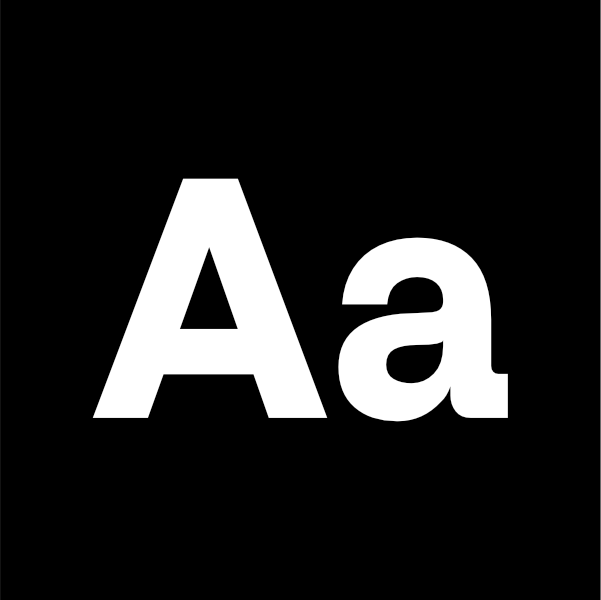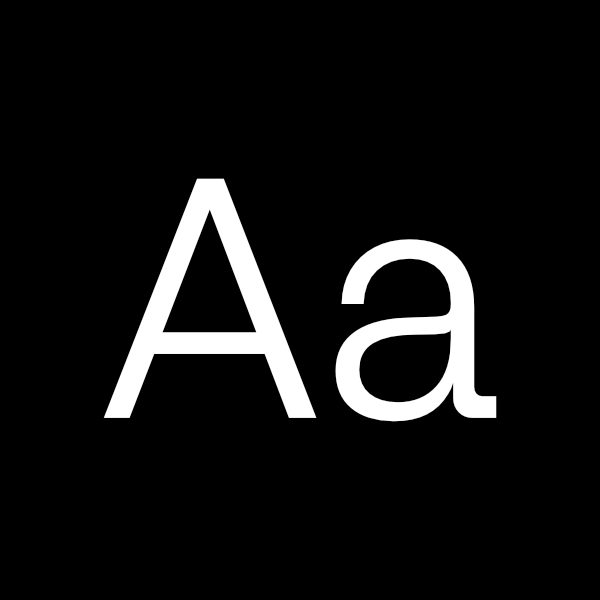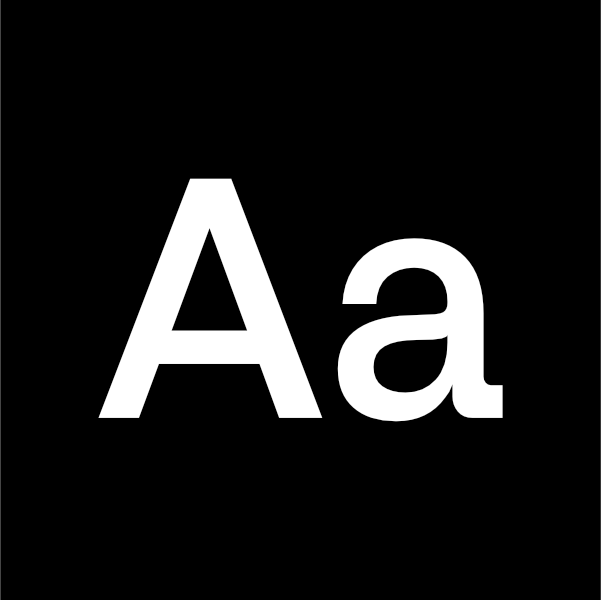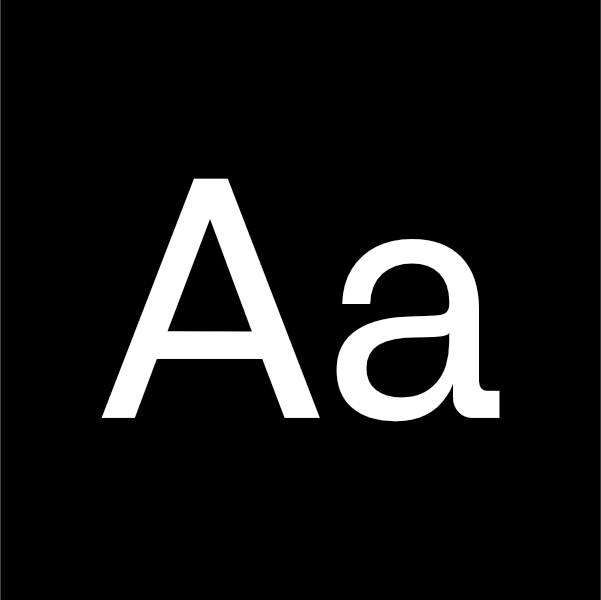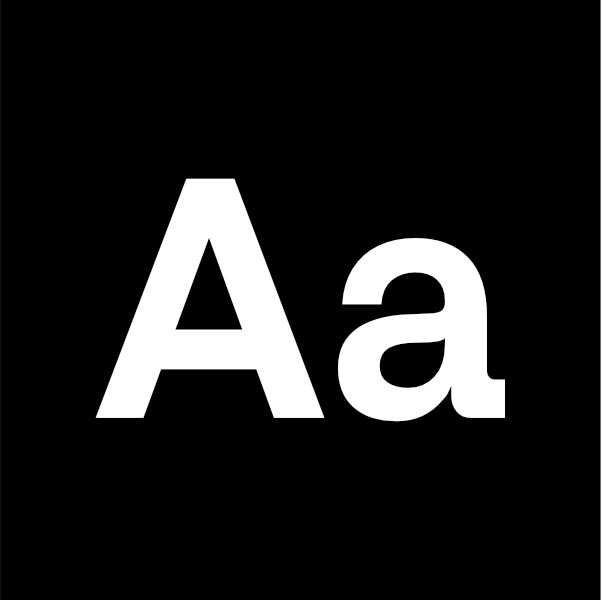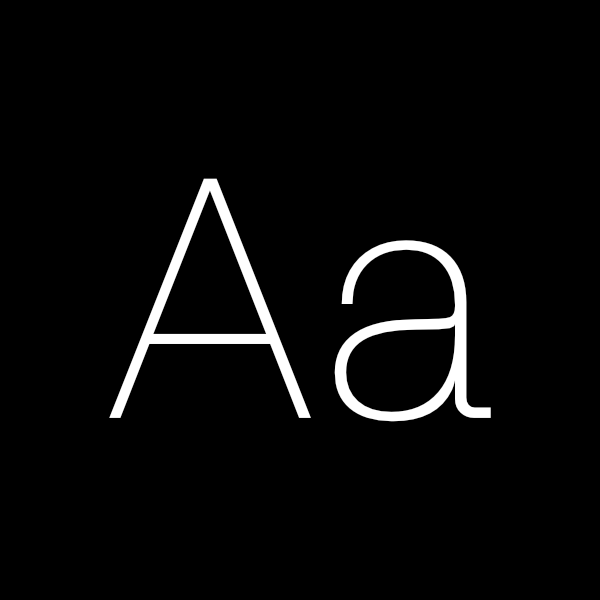
Artific
Artific a modern sans-serif typeface designed to bring versatility and elegance to both online and offline media.
This font is perfect for contemporary interface design, offering exceptional readability and style. With 9 distinct weights, including Thin, Super Light, Light, Regular, Medium, Semi Bold, Bold, Super Bold, and Ultra, each paired with an oblique version, Artific provides a total of 18 styles. Its clean lines and modern aesthetic make it ideal for a wide range of applications, ensuring your designs stand out.
Artific is crafted with user experience in mind, making it perfect for UI and UX design. Its clear and legible characters enhance readability, ensuring smooth navigation and a pleasant user experience. Additionally, the font includes a comprehensive set of symbols, making it a go-to choice for modern interface and user experience design. Whether you’re designing for web, mobile, or print, Artific combines modern aesthetics with unmatched versatility and functionality.